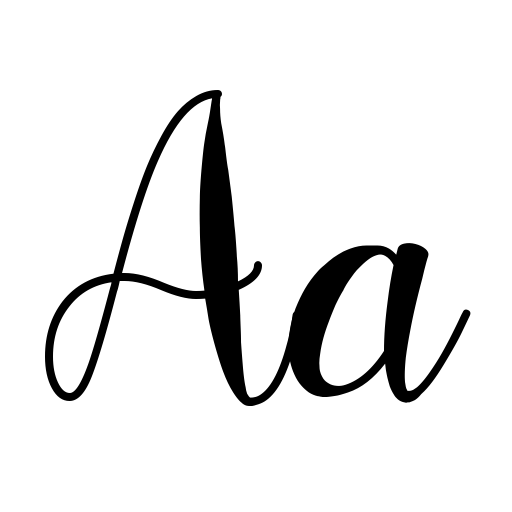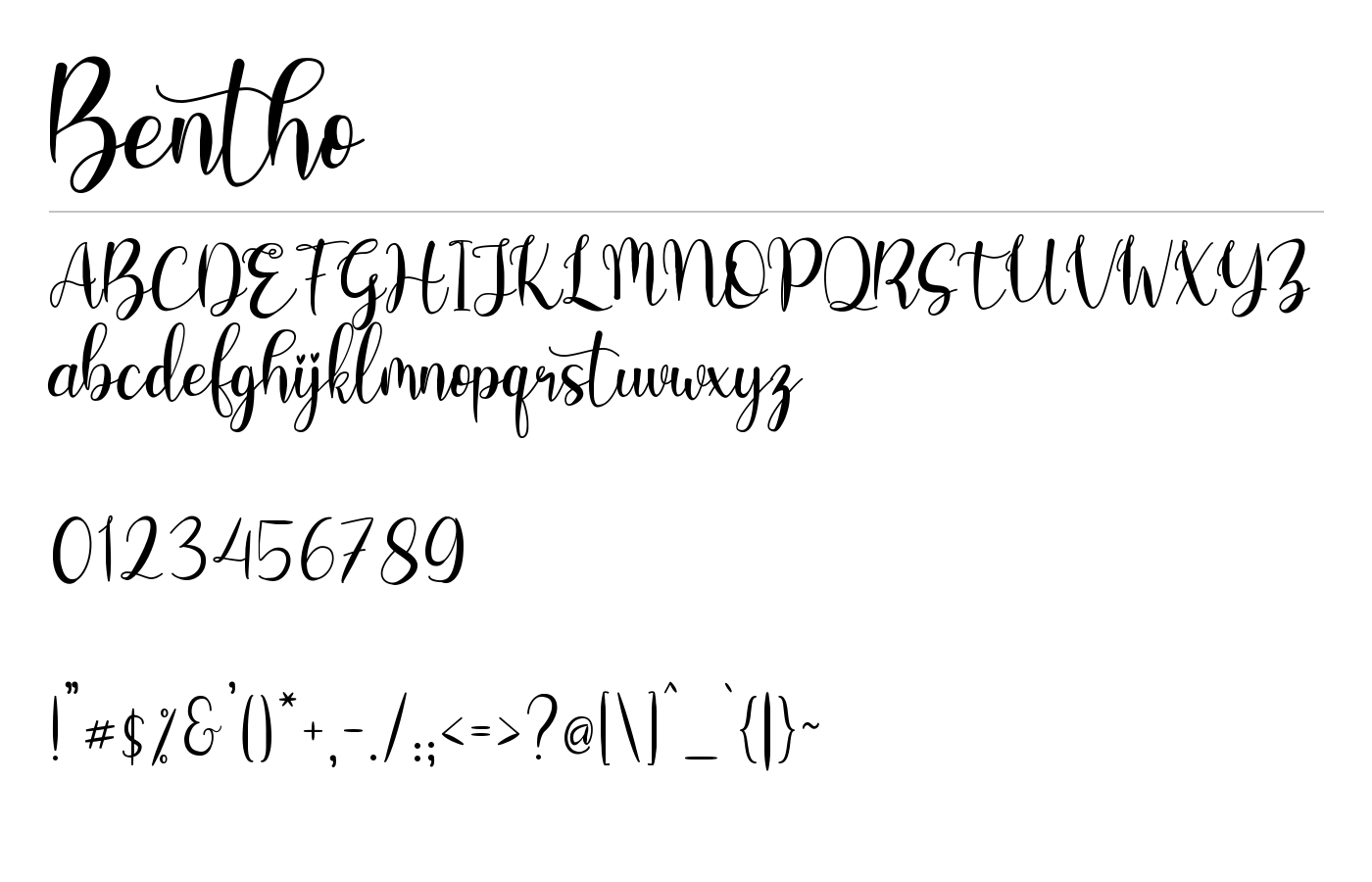
Bentho is a graceful script font with a fluid, handwritten style that features tall, slender letterforms and elegant swashes. Its light weight and delicate curves give it a refined, playful personality, making it ideal for invitations, branding, and feminine editorial designs. This font works beautifully where a touch of sophistication and charm is desired.
Bentho Font
About Bentho Font
| Font family | Bentho Font |
| Designer | Sigit Dwipa Raharjo |